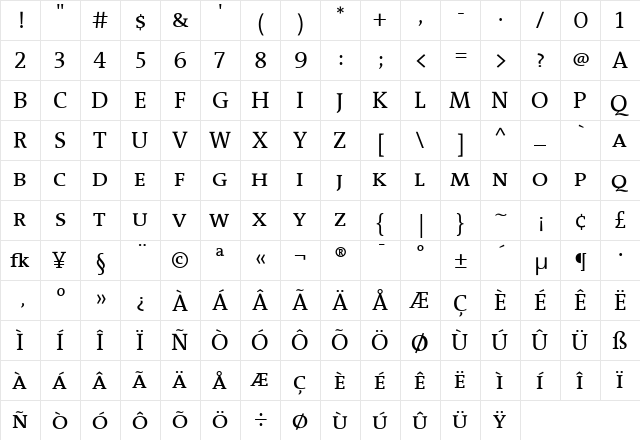
Thesis Antiqua- Regular
Design Context for Thesis Antiqua- Typeface
Thesis Antiqua- is a composed and adaptable typeface that performs quietly and consistently across a wide range of design contexts.